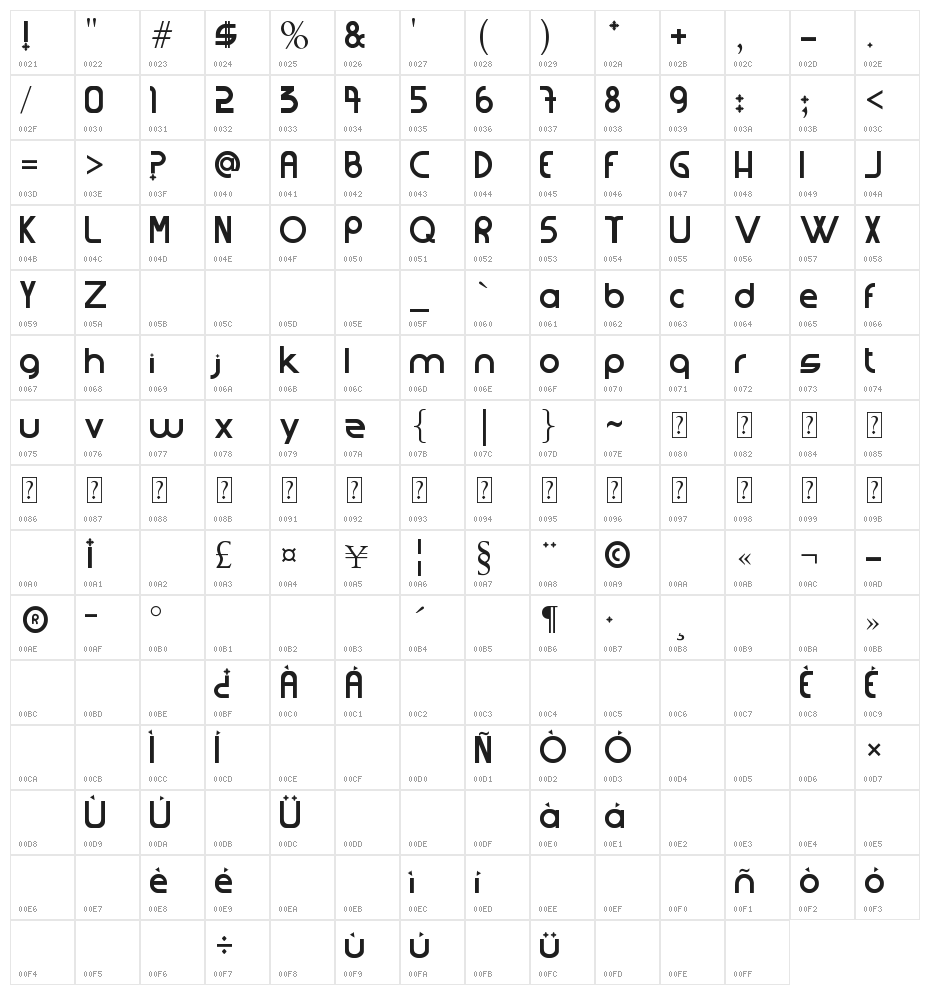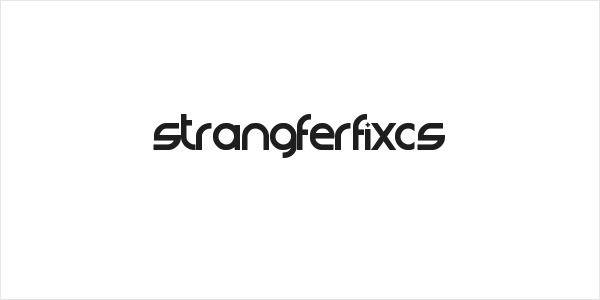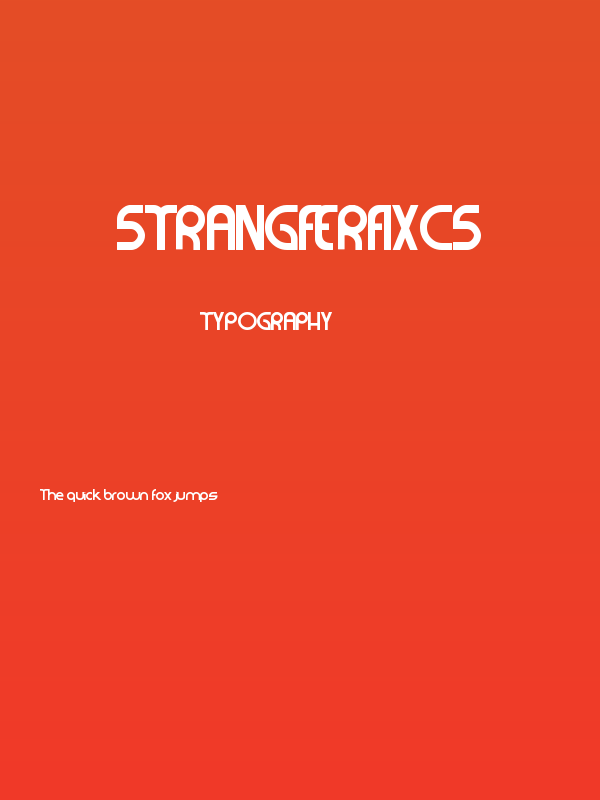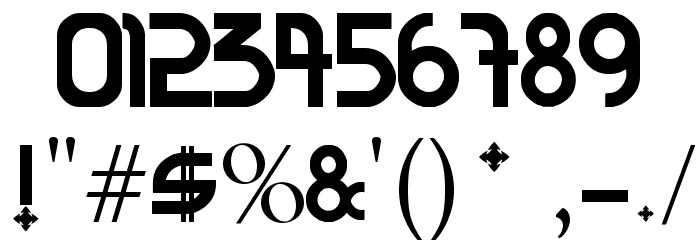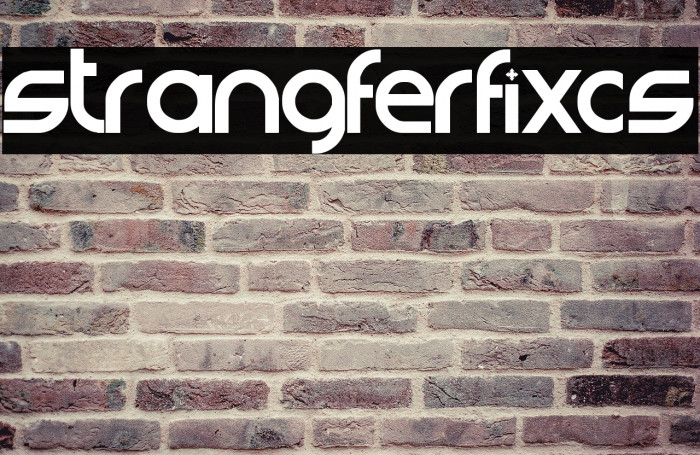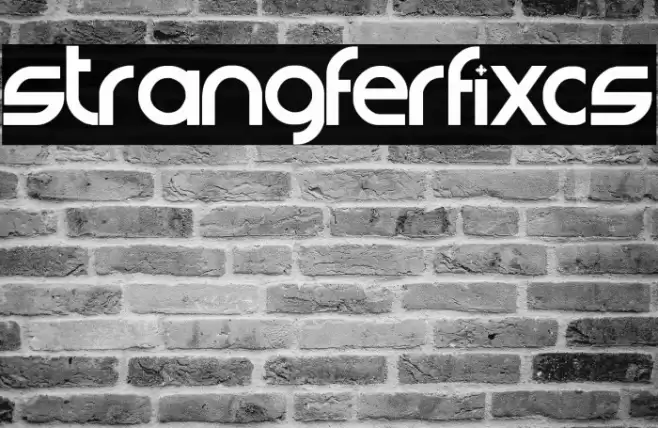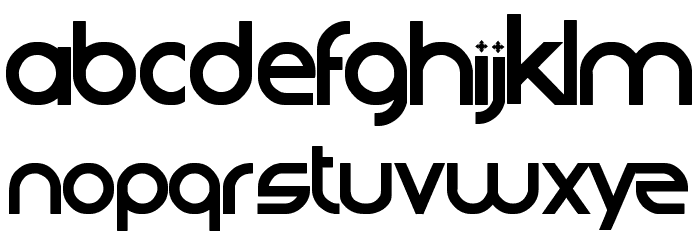
strangferfixcs Font
| Caso d'uso | Headlines, Logos, Digital Interfaces |
| Progetti proposti | Ideal for tech branding, modern advertising, digital interfaces, and futuristic-themed designs. |